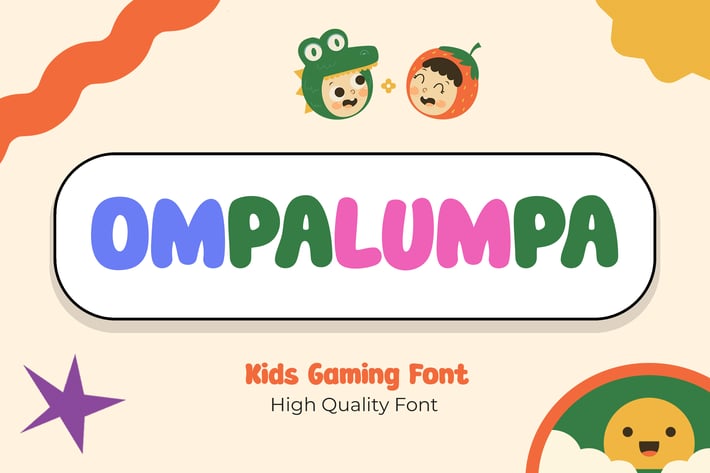
Ompalumpa - Kids Gaming Font
Cartoon feel with great read-ability through out the whole sentences, hence will make your gaming project engage more towards the children.
Suit perfectly for encouraging kids themes books market, educational gaming poster, stationary, school supplies font, youtube covers, youtube thumbnails, social media page covers and so on...